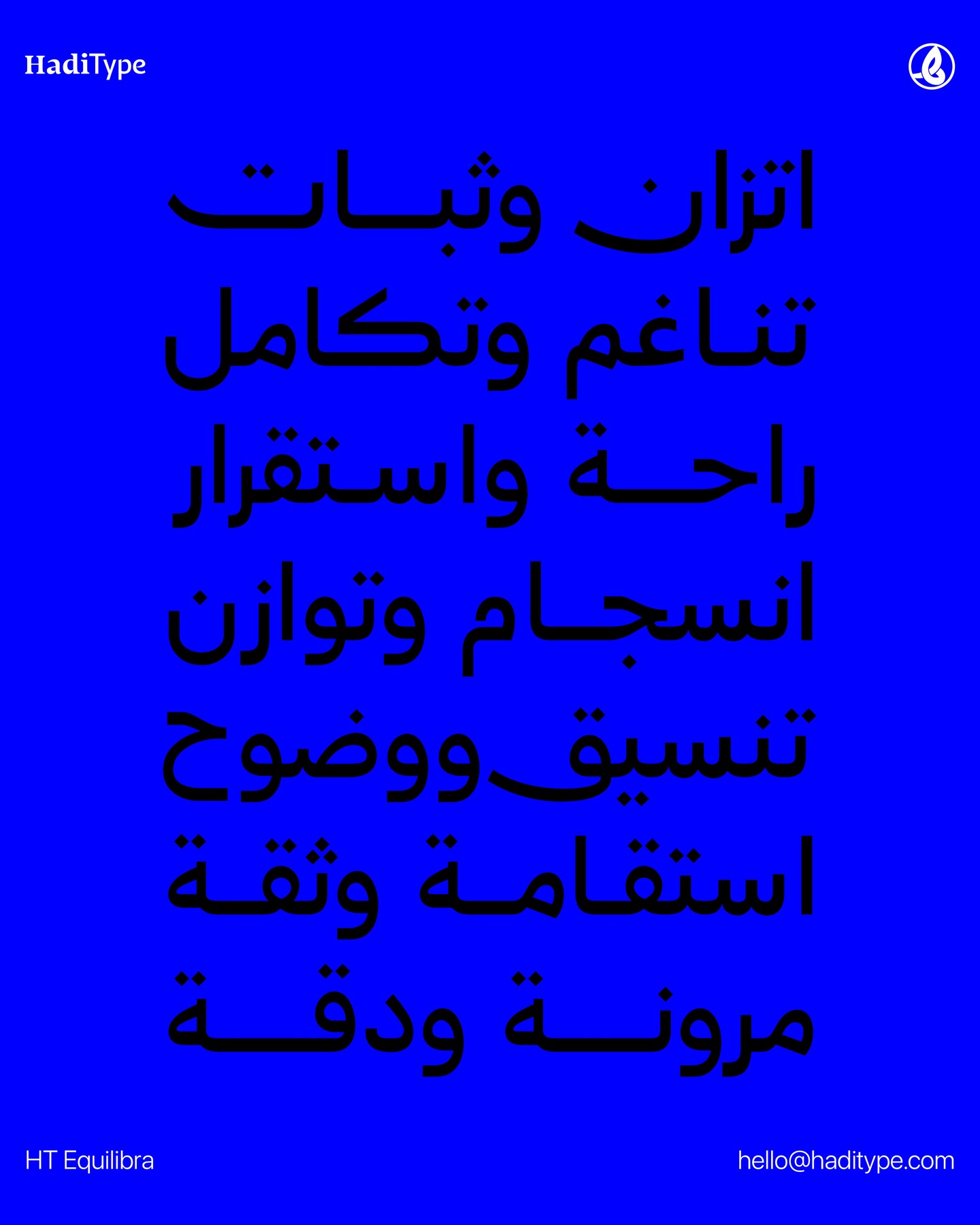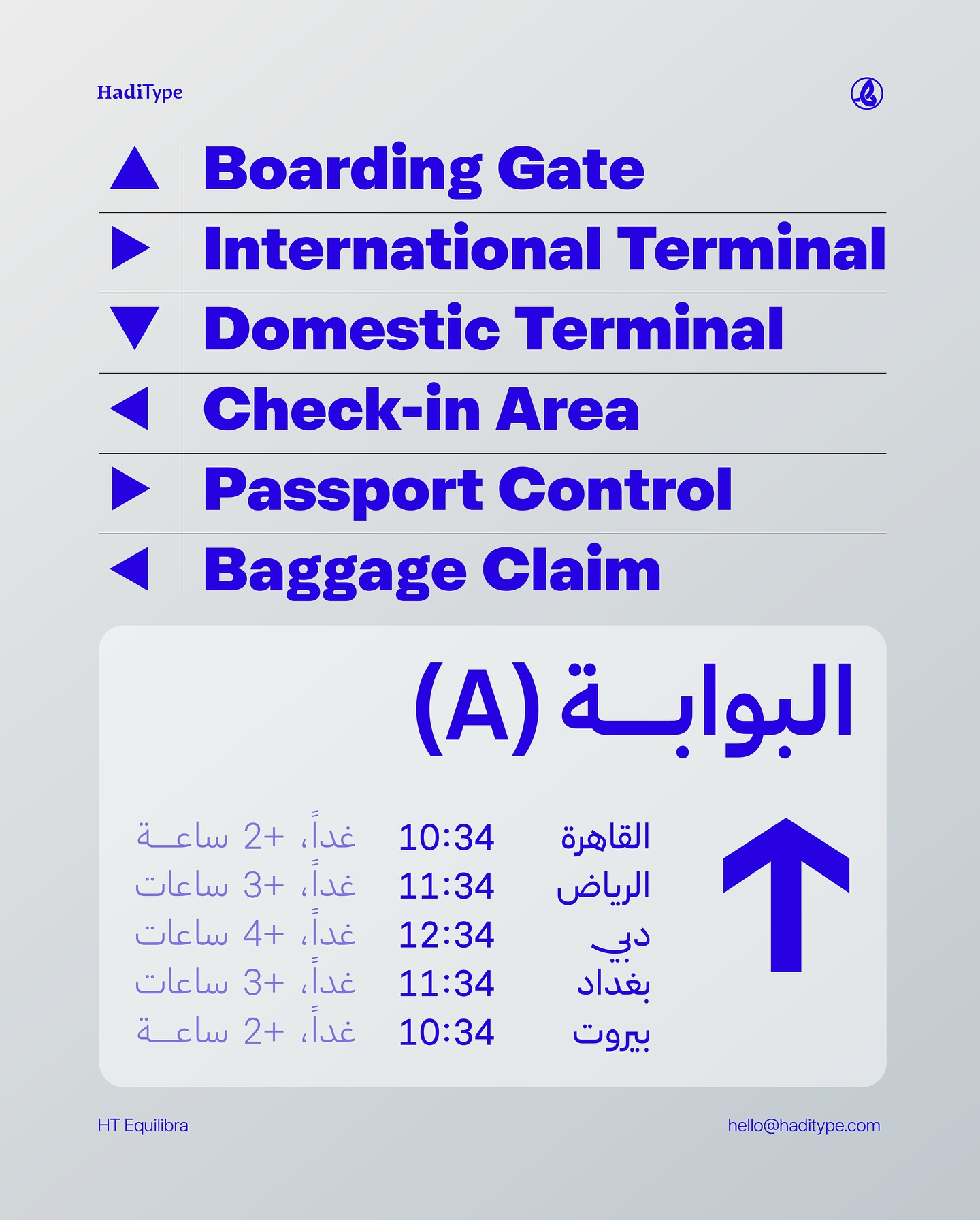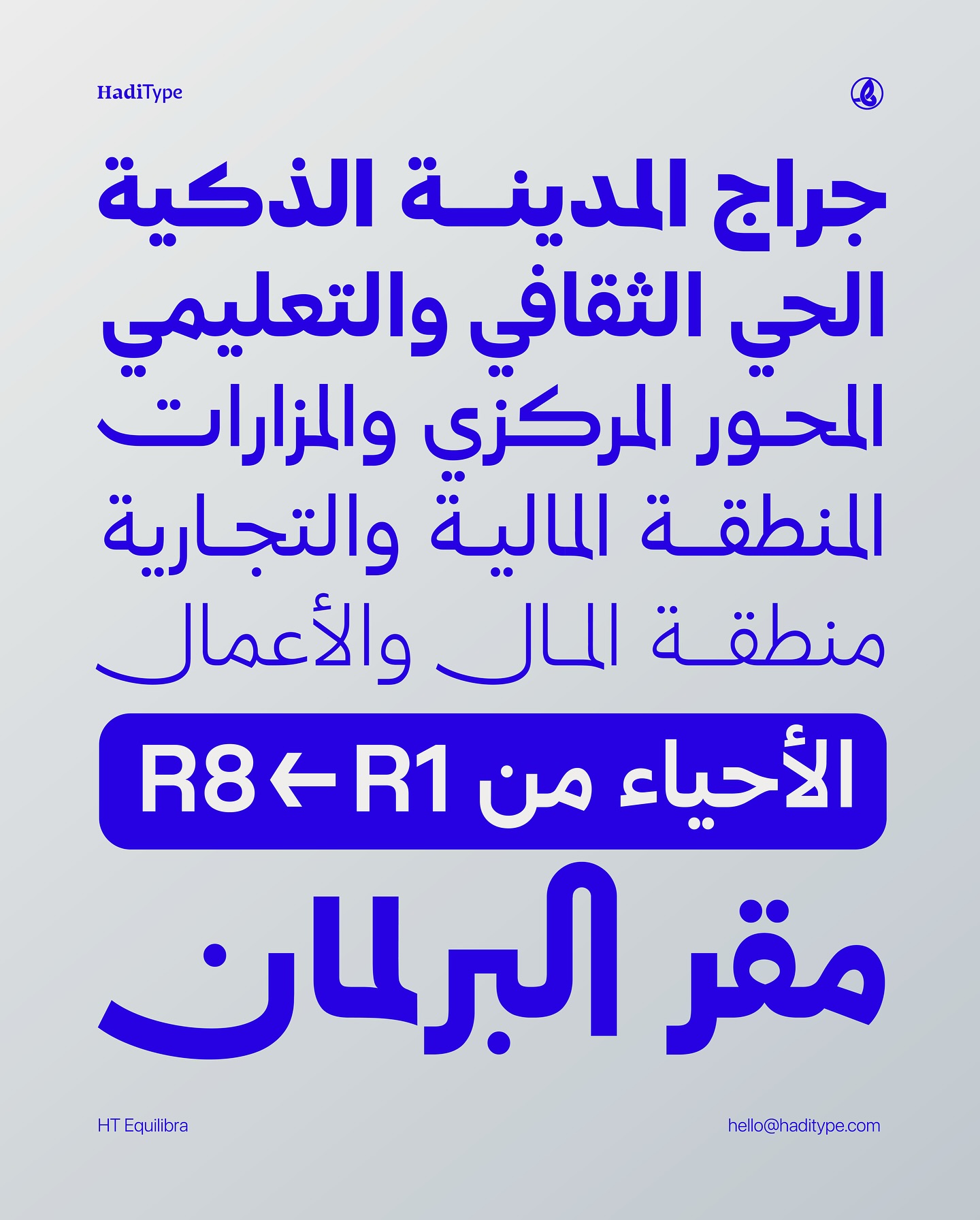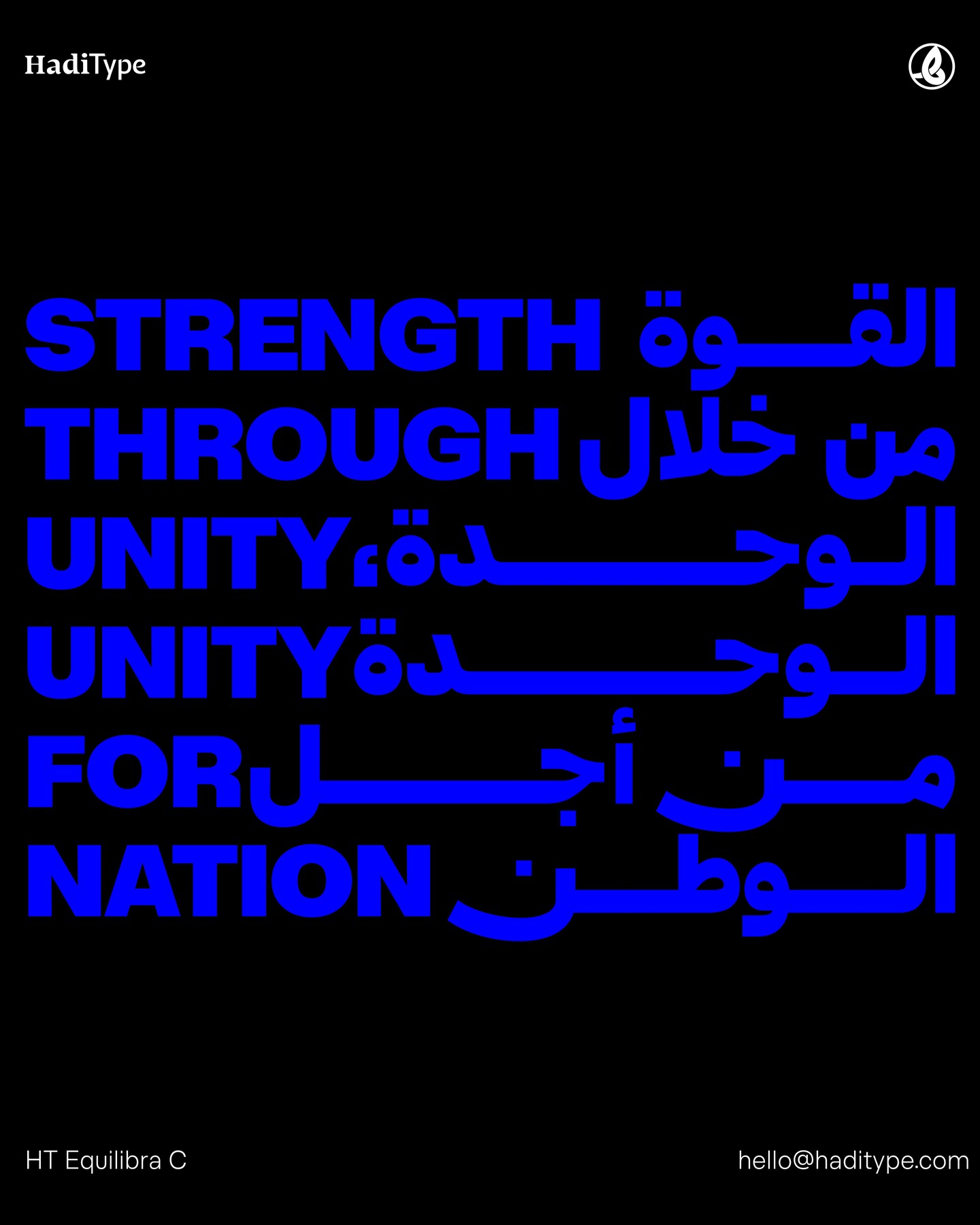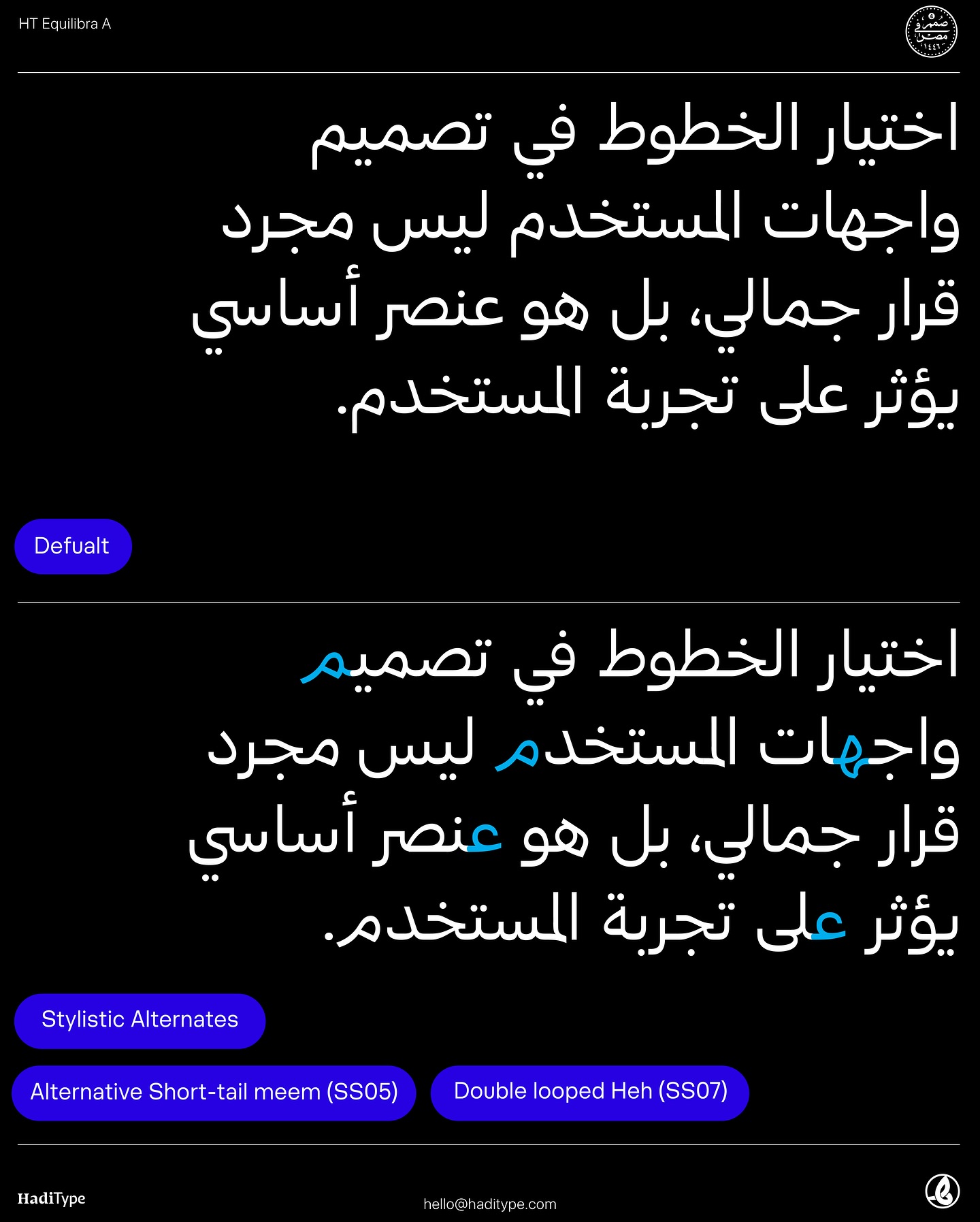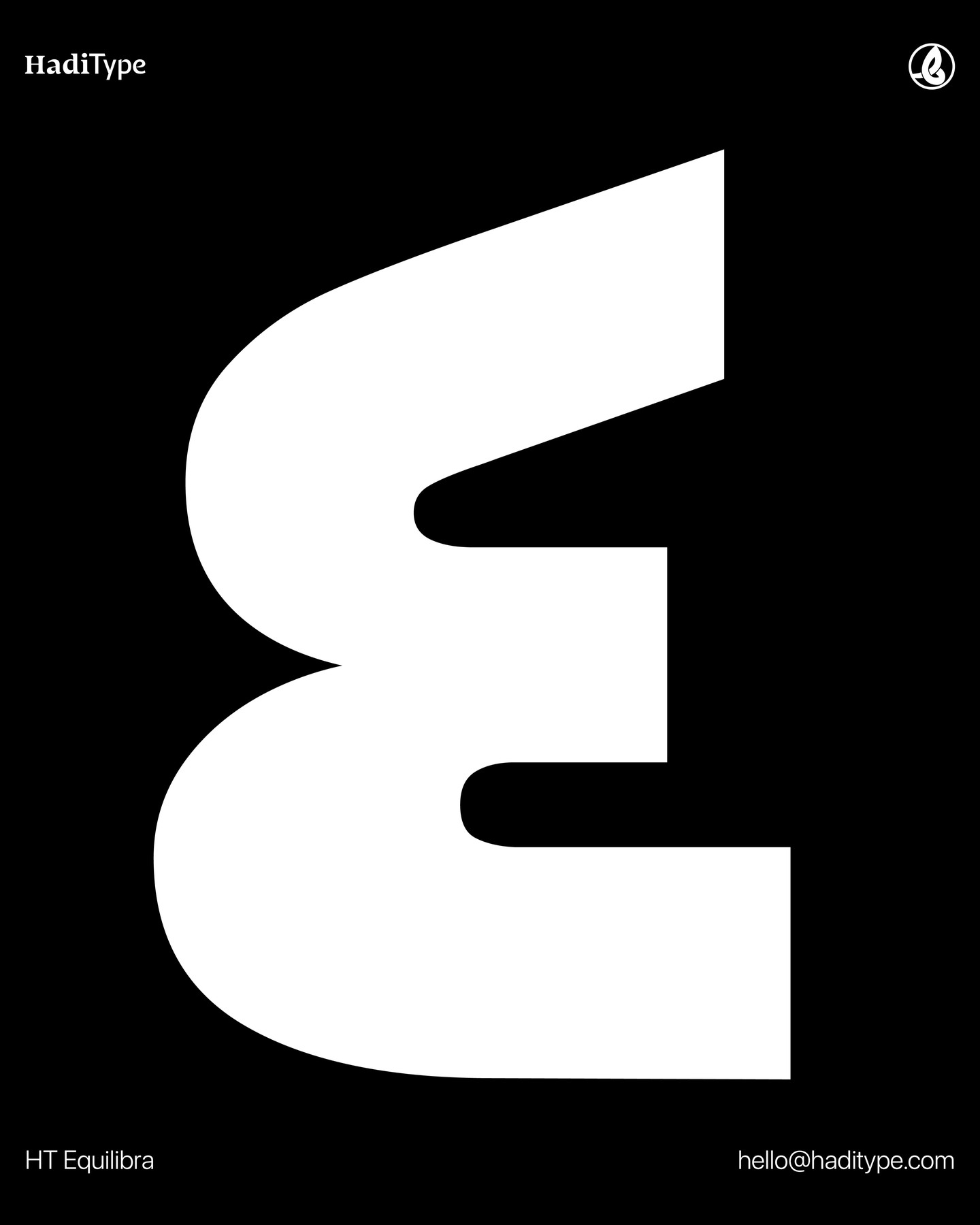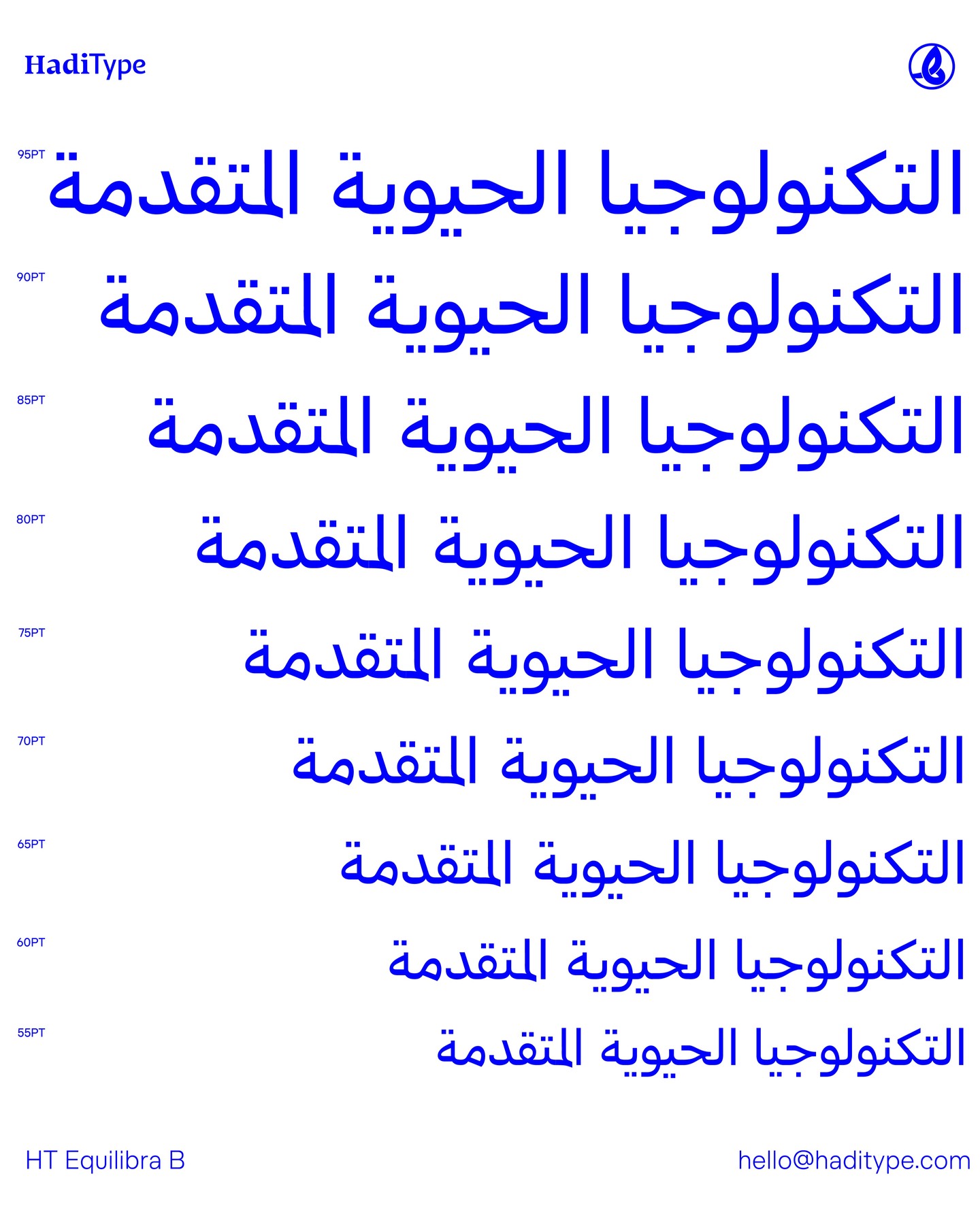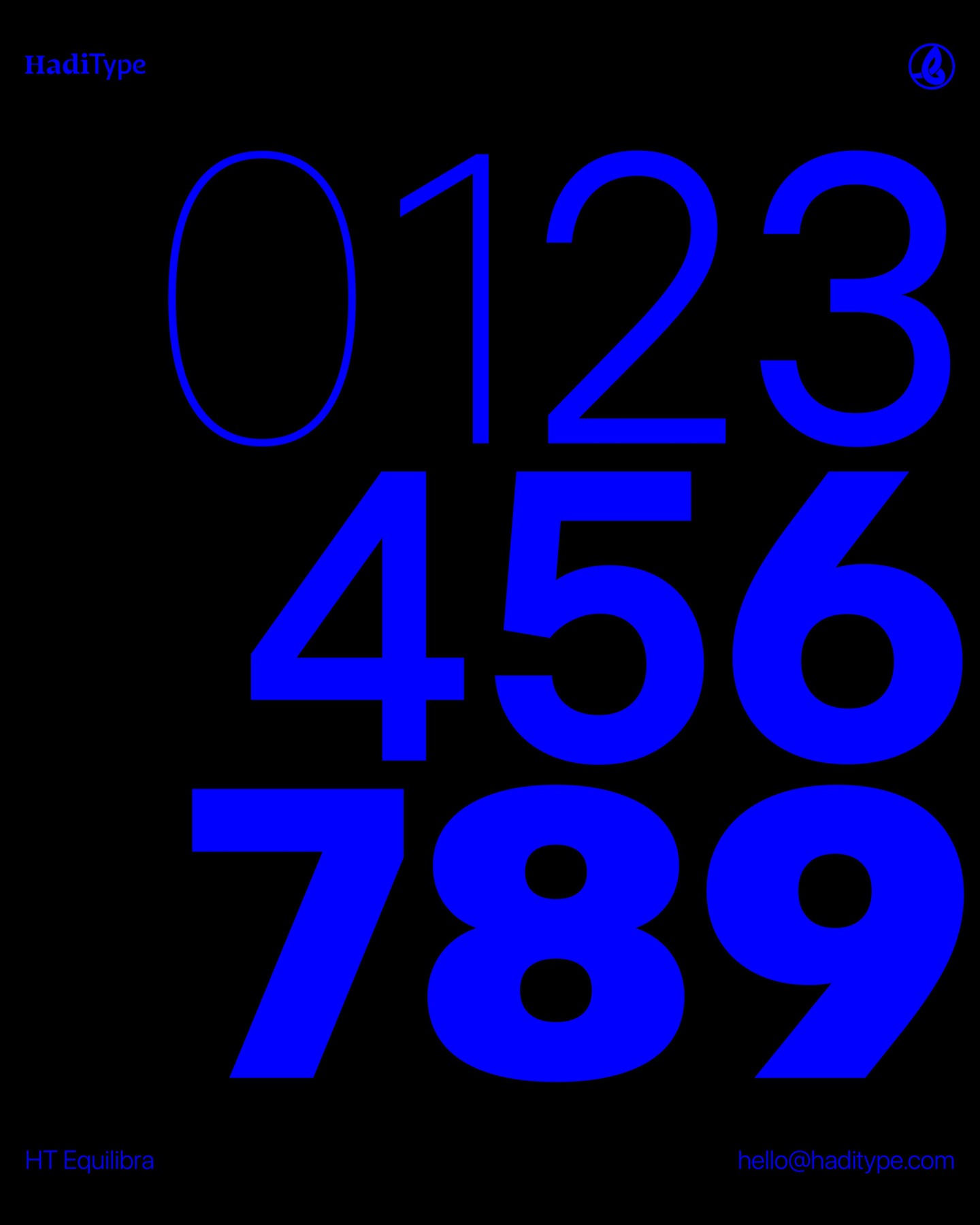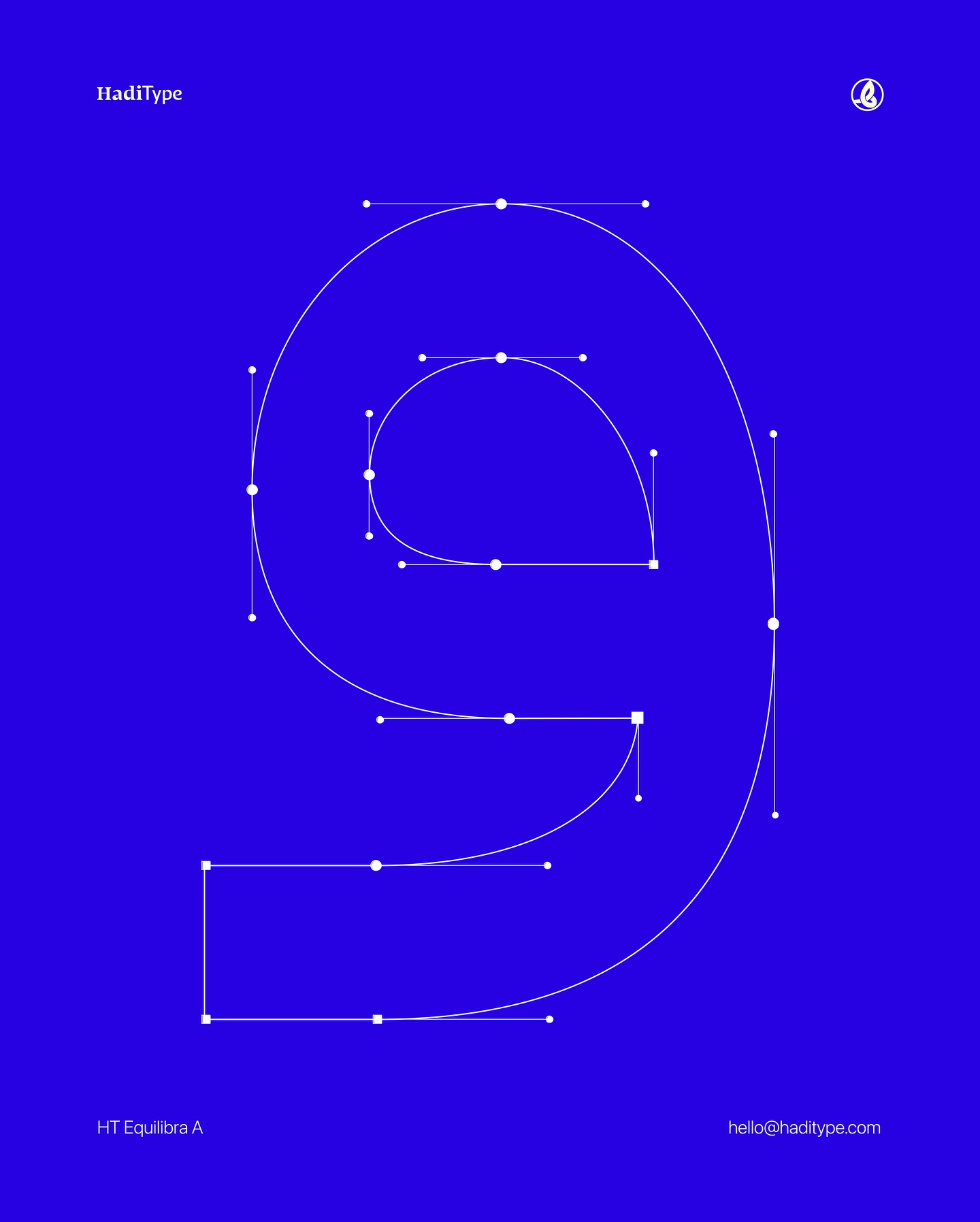
HT Equilibra
إيكويليبرا خط هندسي متغير متعدد اللغات بتصميم أنيق وعصري، مناسب لمختلف التطبيقات
HT Equilibra is a sleek and modern multi-language geometric font.
Introducing Equilibra, a new multilingual typeface that masterfully combines precise geometric foundations with a warm, organic touch. While the typeface’s geometric base ensures clarity and discipline, making it ideal for contemporary designs, its soft, refined elements add vibrancy and a human quality, setting it apart from the cold and rigid nature of many geometric fonts.
Equilibra is designed to appeal to a wide range of tastes and applications, making it suitable for everything from sleek tech branding to more personalized small-business projects. The typeface’s creative details shine through in elements such as the dynamic form of the letter «ح», the symmetrical balance of «ن», and the sharp, distinctive bottom of «م». Each character reflects the meticulous care that went into its design, creating a sense of harmony and innovation throughout.
When paired with its Latin counterpart, Equilibra offers a seamless typographic solution for multilingual projects, maintaining both modernity and elegance. The Arabic and Latin scripts complement each other beautifully, ensuring consistency and versatility across diverse design contexts.
Whether you’re using the bold Extra Black weight for striking headlines or the lighter weights for subtler, sophisticated applications, Equilibra delivers exceptional attention to detail in its curves and internal spaces. The result is a balanced and visually pleasing typographic experience that enhances readability and aesthetic appeal.
Its contemporary shapes, combined with its humanistic undertone, make Equilibra a standout choice for various uses, from corporate identity and editorial layouts to digital interfaces and advertising campaigns..
OpenType Features: ccmp, contextual alternates, stylistic alternates, standard ligatures, swash, dictionary ligatures, required ligatures.